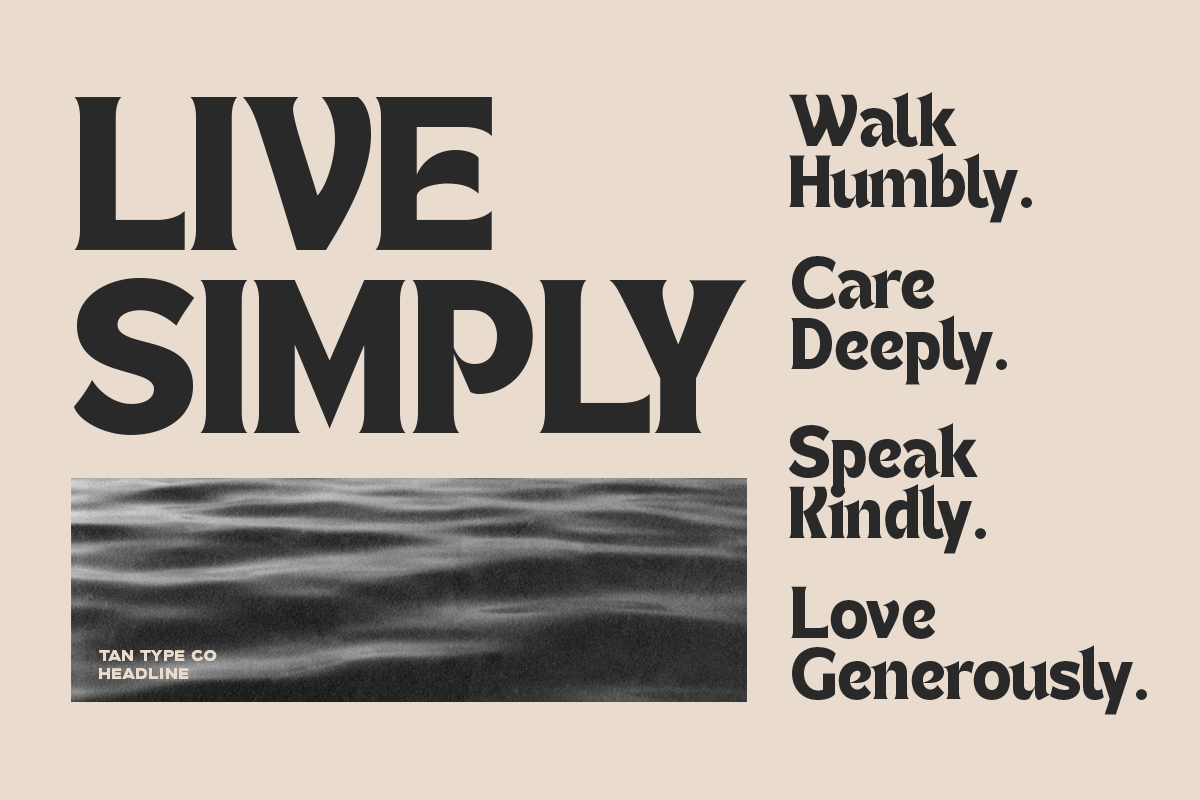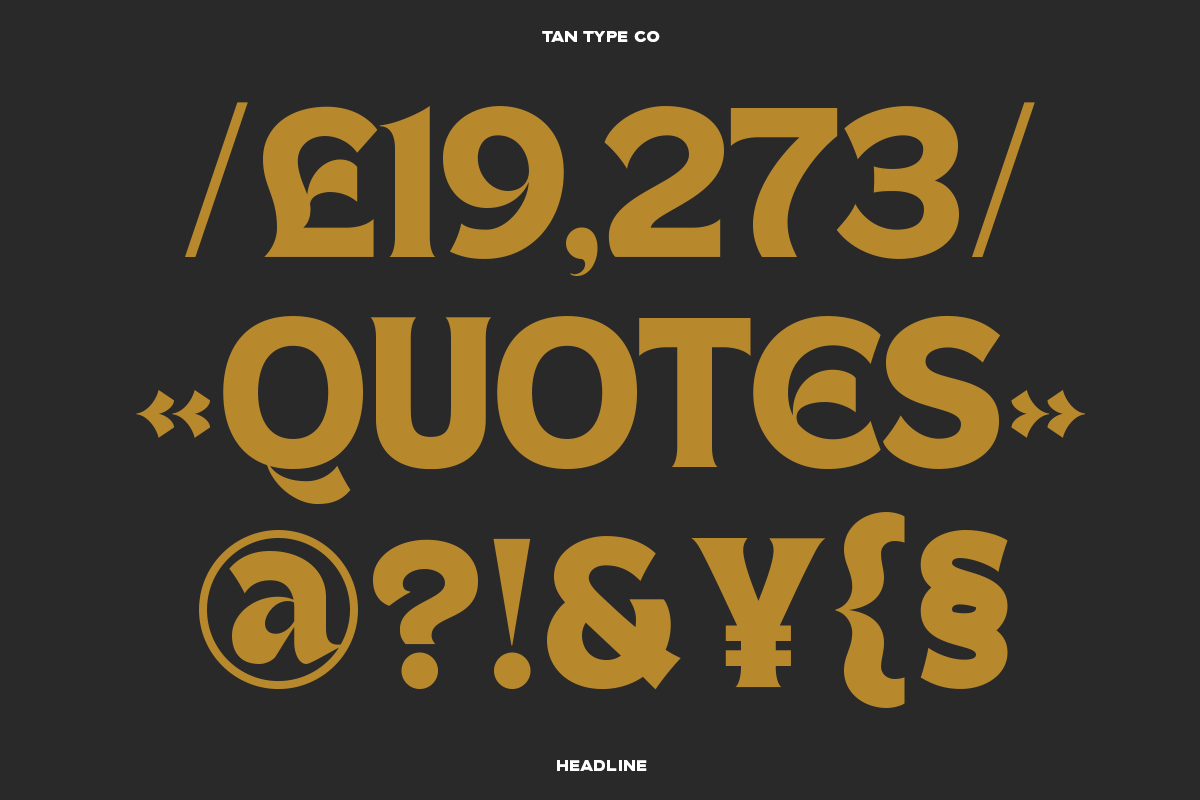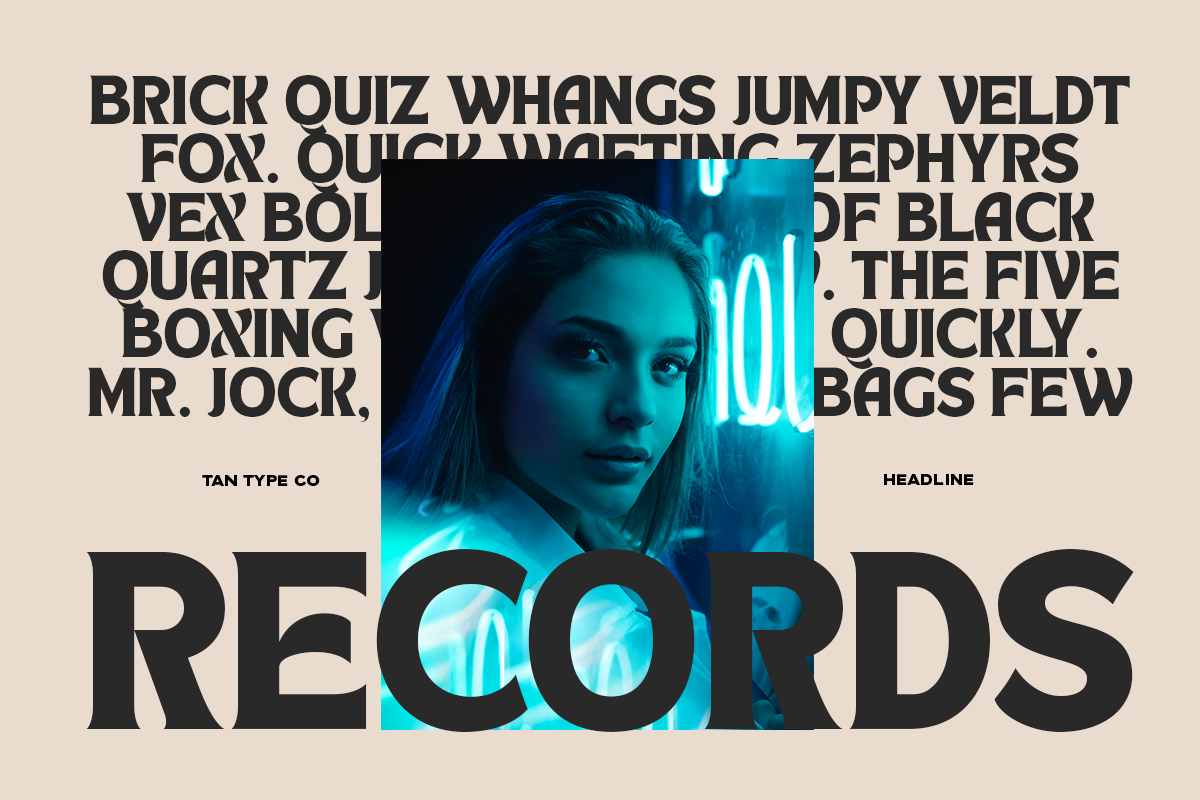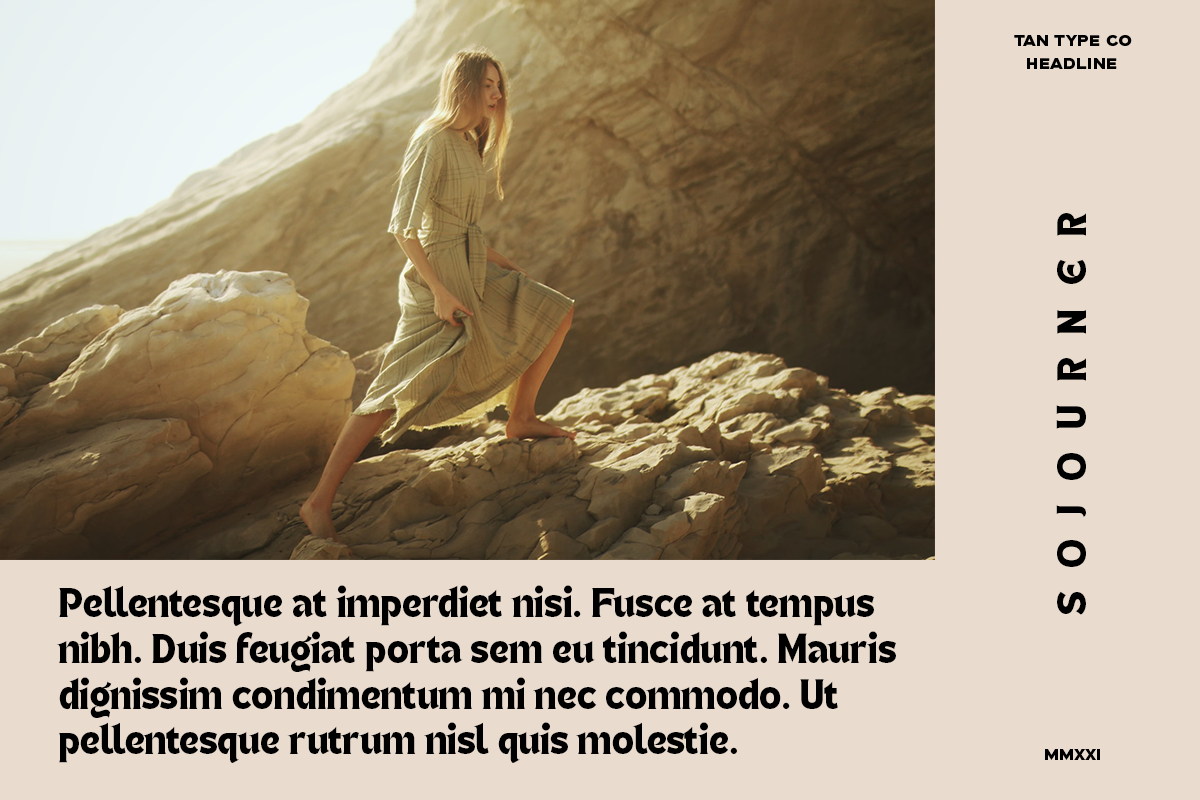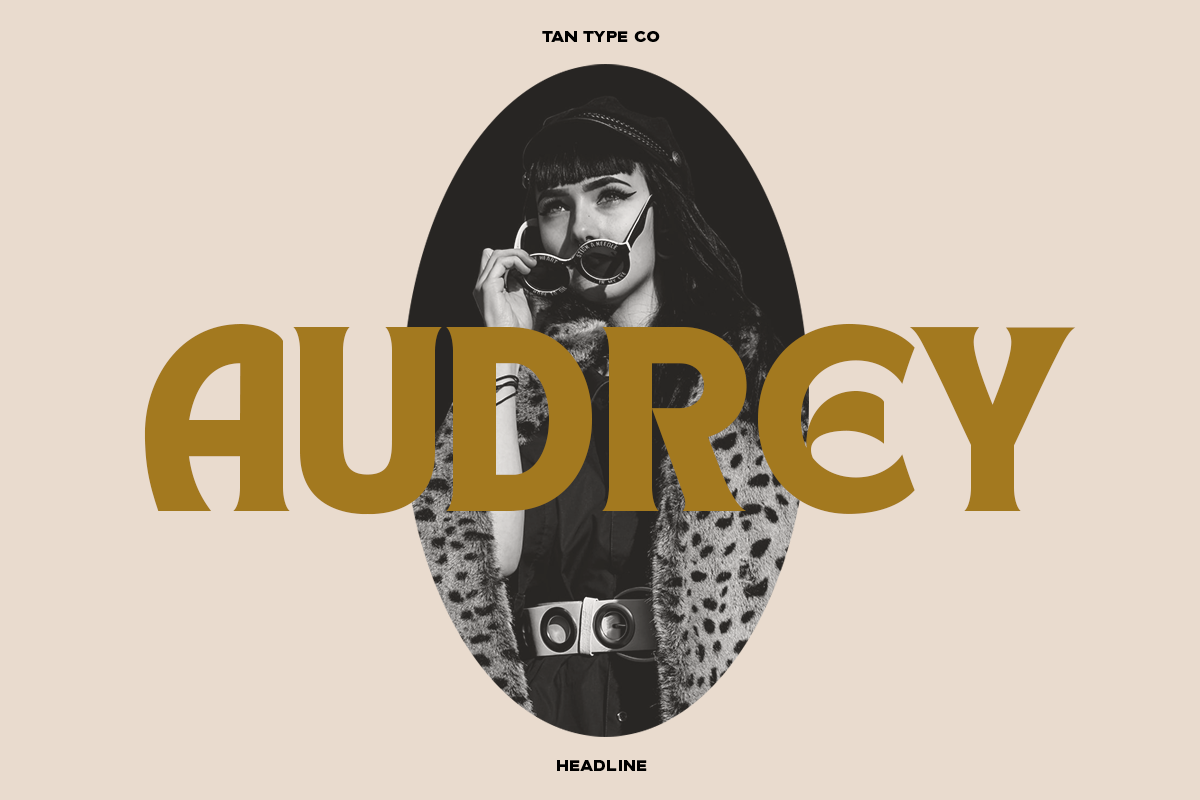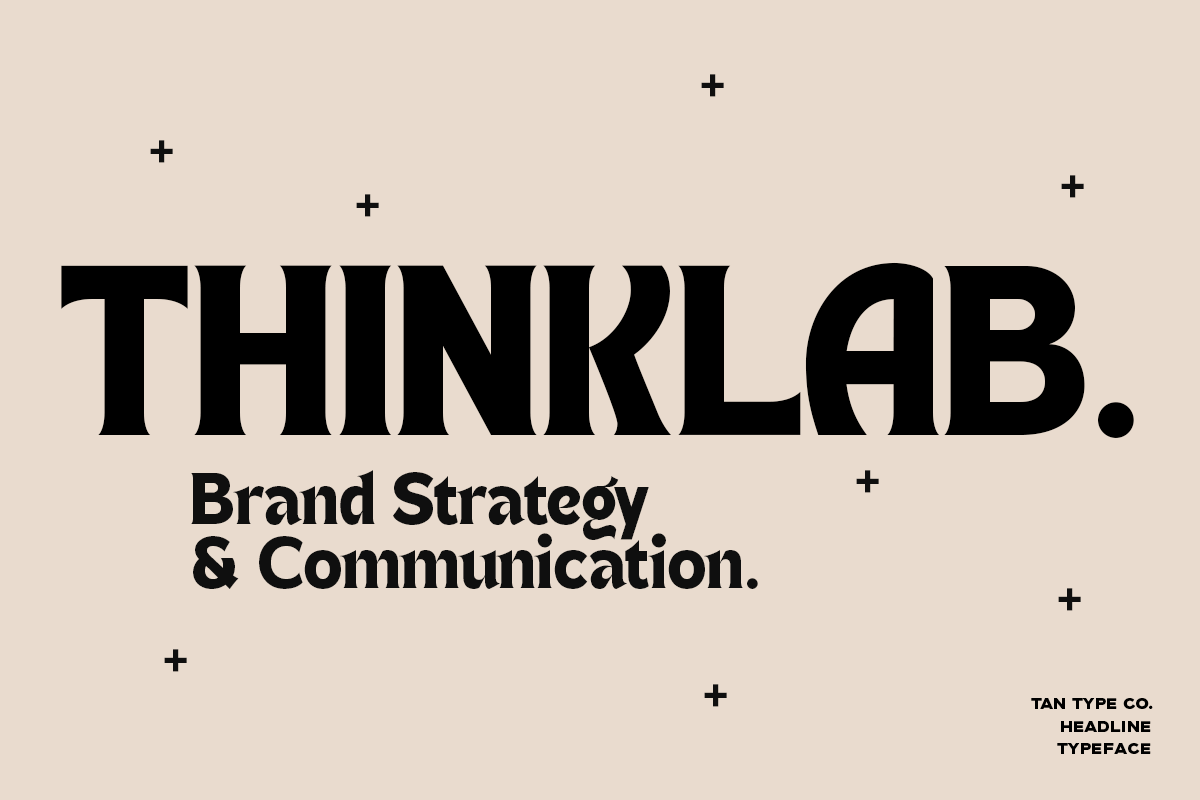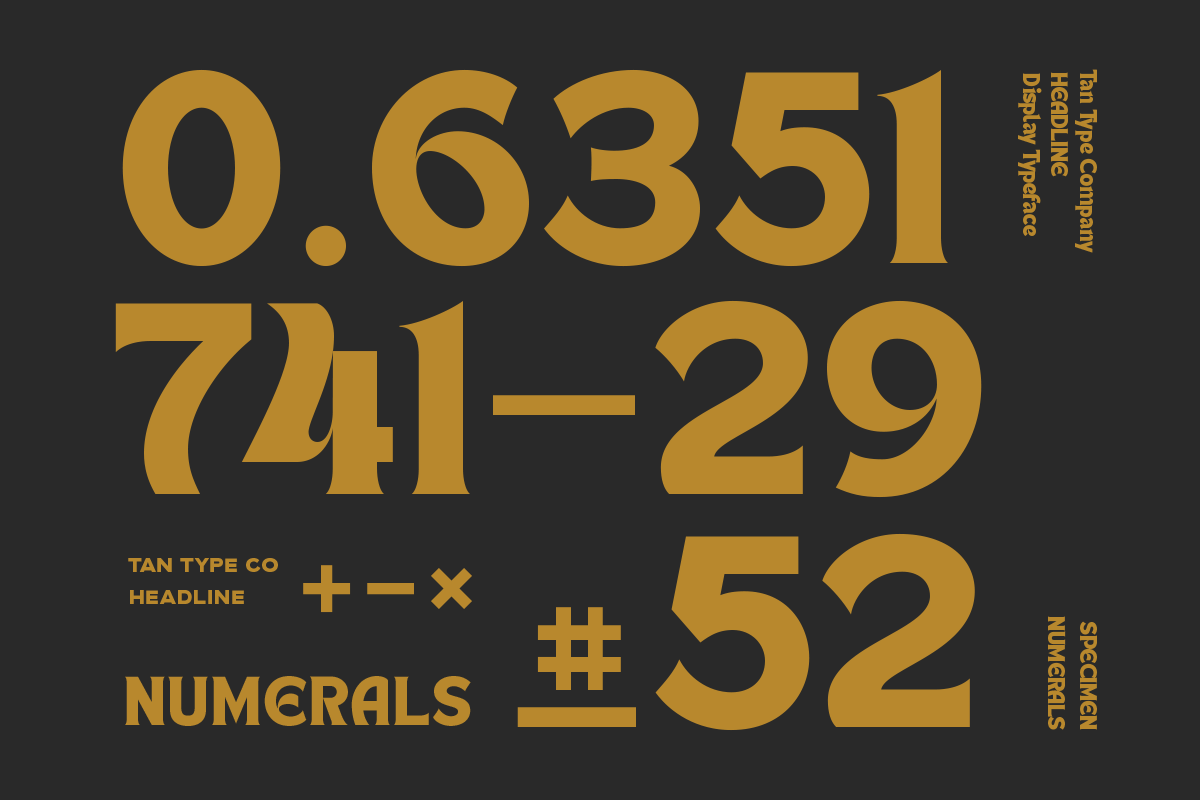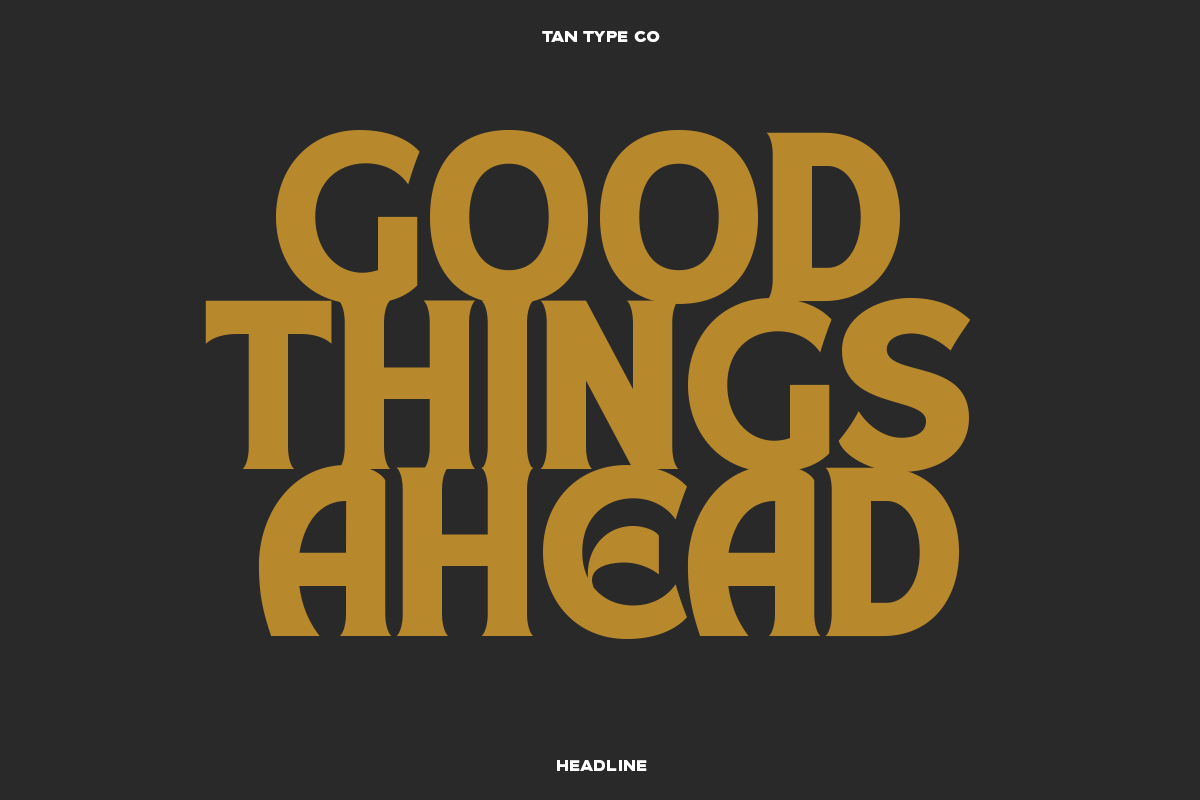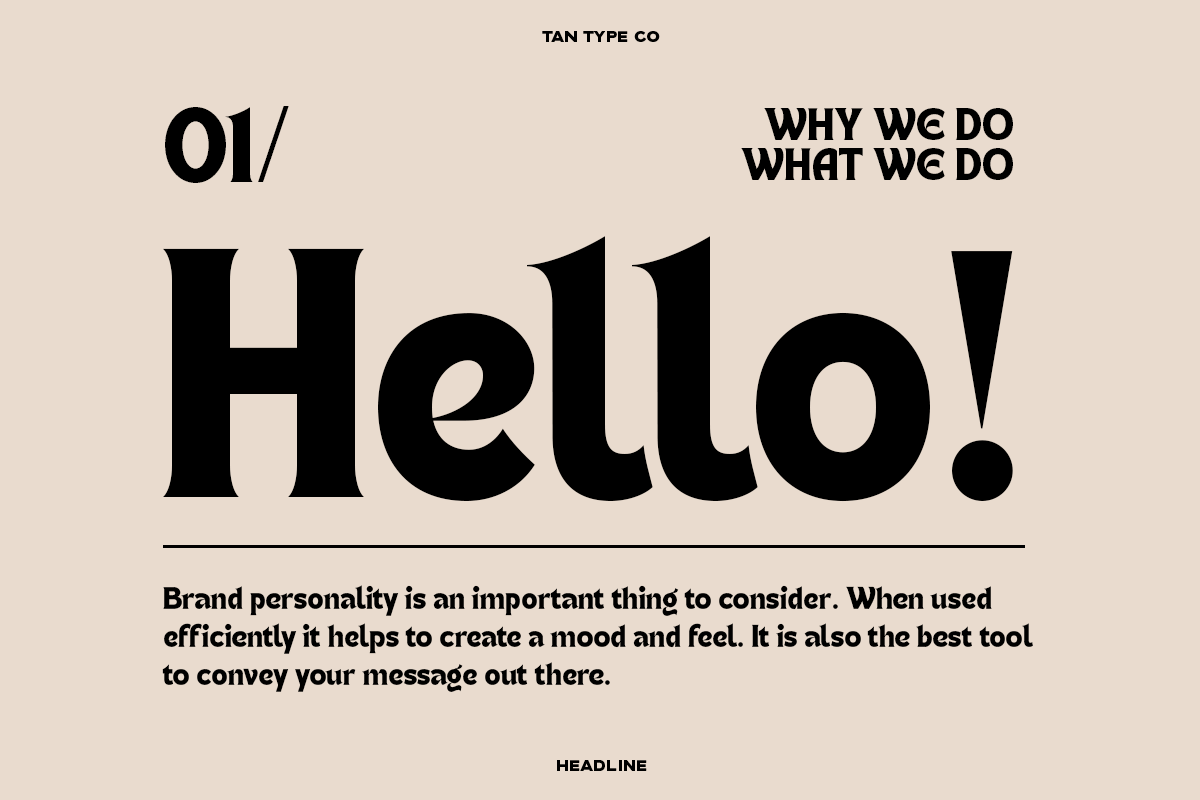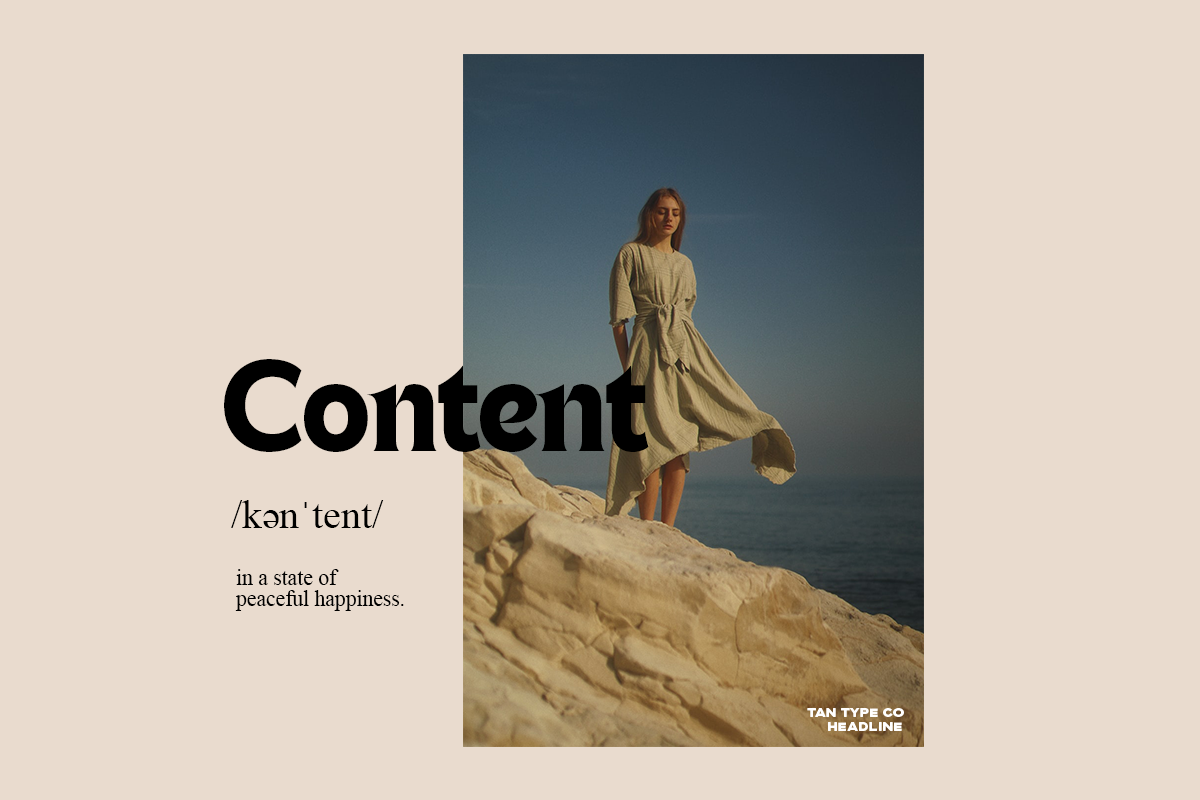
HEADLINE is a bold and commanding display typeface with vintage flair and sharp, stylized forms. Its strong vertical strokes and flared terminals evoke the energy of classic newspaper mastheads, delivering a punchy, retro-modern look with unmistakable presence.